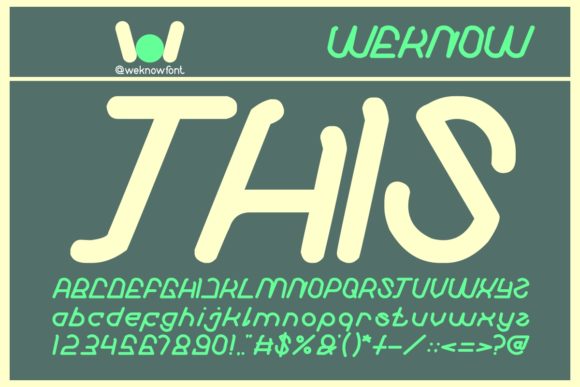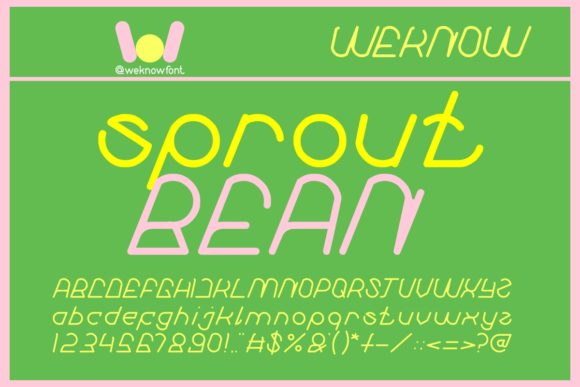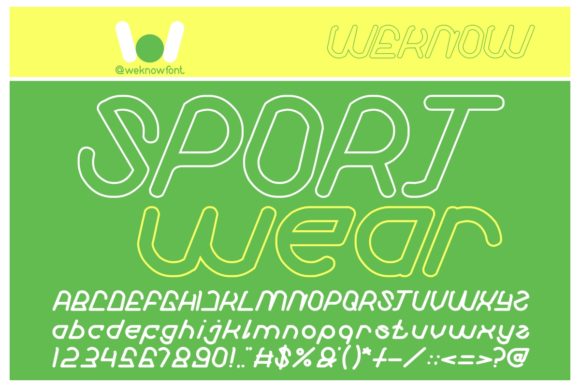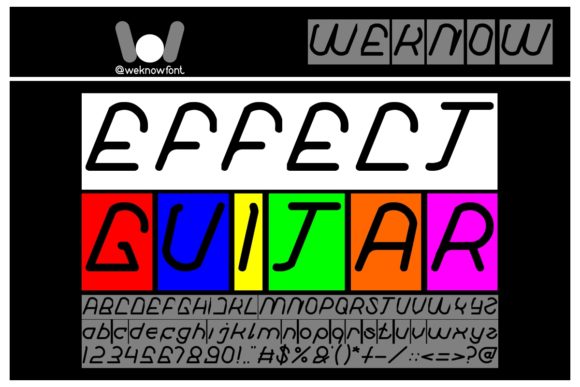
Introduction to Like This Font
As designers, we’ve all been there – staring at a blank page, trying to come up with the perfect concept for our next project. The cursor blinks, and our minds go blank. But then, like a spark of inspiration, it hits us. A clean, modern font catches our eye, and suddenly, our creative project starts to take shape. That’s exactly what happens when we stumble upon Like This Font – a high-quality, minimalistic display font that’s perfect for posters, social media graphics, and more.
With its sleek design and transparent background, Like This Font is a valuable resource for designers looking to elevate their creative projects. Whether you’re working on a freelance project or a personal design initiative, this free download is sure to be a game-changer. So, let’s dive into the world of Like This Font and explore its unique features and benefits.
Key Features of Like This Font
- High-resolution design resource ideal for creative projects, with a transparent background for seamless integration.
- Includes a range of characters, including uppercase and lowercase letters, numerals, and special characters.
- Designed with a clean and modern aesthetic, making it perfect for use in logos, branding, and other high-quality design applications.
- Unique characteristic: The font’s unique blend of modern and classic elements makes it stand out from other design resources.
Honest Review: Like This Font
As a designer, I’m always on the lookout for high-quality design resources to enhance my creative projects. Like This Font is a great addition to my library, offering a unique and versatile font that’s perfect for any design project.
- High-quality design with a transparent background, making it easy to use in various creative projects.
- A modern and sleek design that’s perfect for creating eye-catching graphics and typography.
While Like This Font is a great resource, it’s not without its limitations. One major issue is that it’s not available in as many languages as some other fonts, which may limit its usability for international projects.
Overall, I’m impressed with Like This Font and would definitely recommend it to designers looking for a high-quality, versatile font for their creative projects. With its transparent background and free download option, it’s an excellent addition to any design library.
Common Use Cases for Like This Font
Like This Font is perfect for creating eye-catching social media graphics, posters, and flyers. It’s also great for designing logos, business cards, and other branding materials.